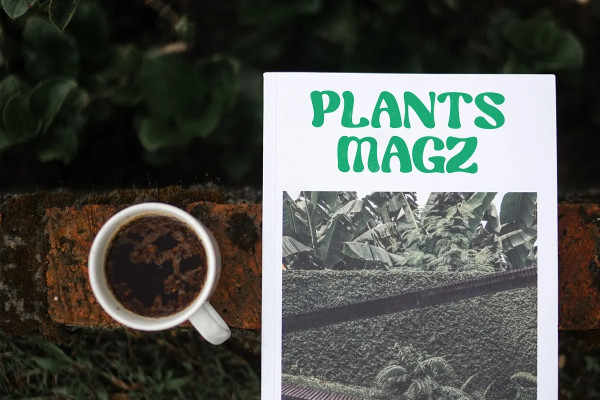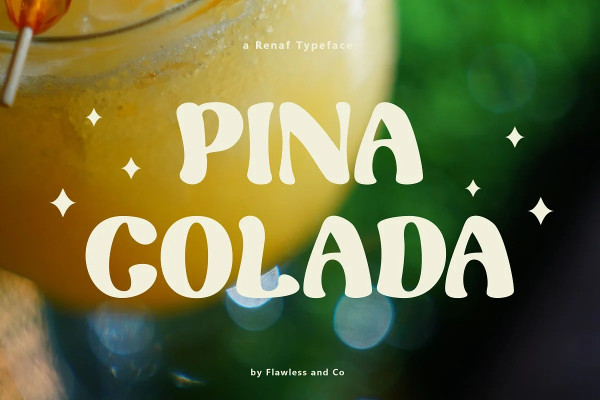
RENAF TYPEFACE
Renaf Typeface – Modern Retro Font, our new “Renaf” Modern Retro with Fun and Elegant Style is perfect for branding, logos, invitation, master heads, and more.